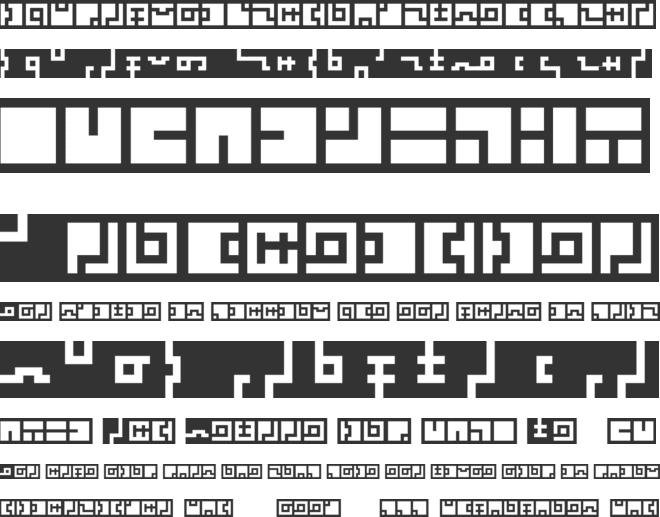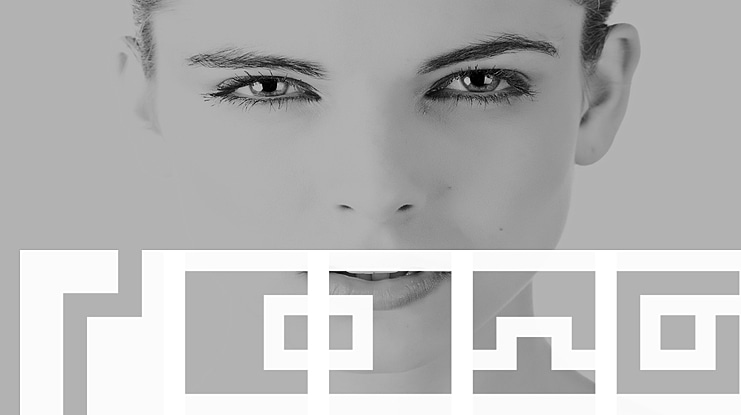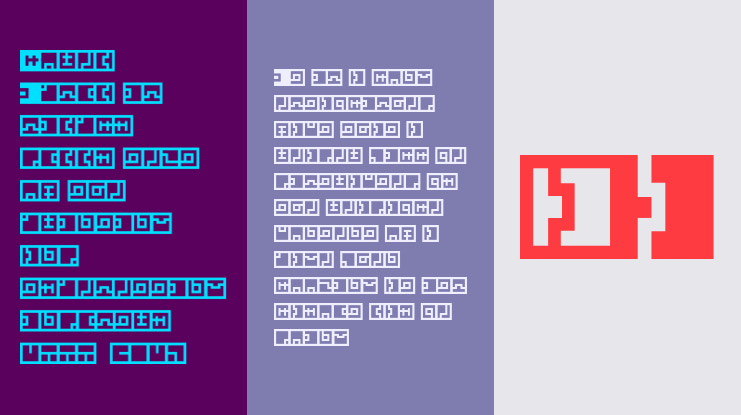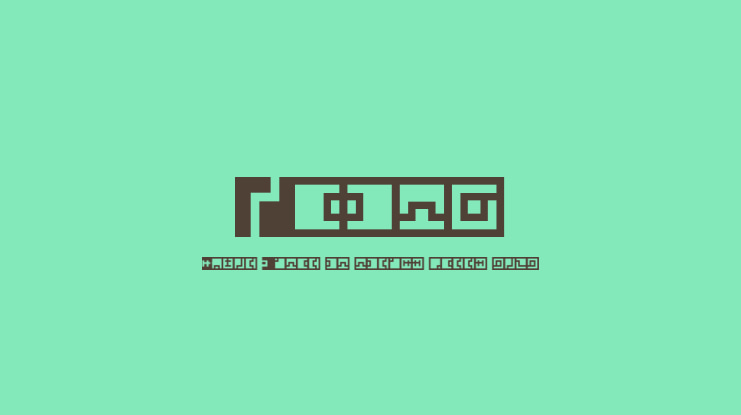
Zuish Font
This font is inspired by the game "Fez" by Polytron. It is currently available on the Microsoft's Xbox 360 via Xbox Live Arcade.
The font's name, Zuish, derives from information found within the game's files. Keeping with the tradition set in Gomez's world, only the following characters are represented: A-Z, a-z, and 0-9. No other signs or marks are included at this time.
- Fixed rotation of all letters. - Added solid letters for A-Z.
- This is the second version. It will be updated when bugs or other issues are discovered.
- The characters K and Q, U and V are the same, respectively, because that is how they are presented in-game.
- While the numbers 3, 4, 5, 6, 7 have alternate glyphs used in-game, only one version is represented in this set; 10 has been omitted for obvious reasons.
Font based on Polytron's Fez.